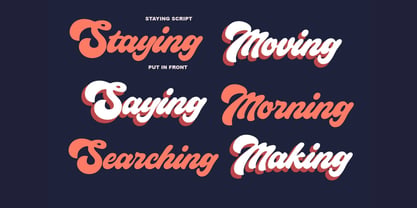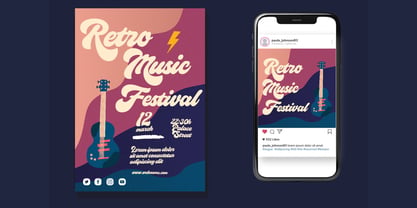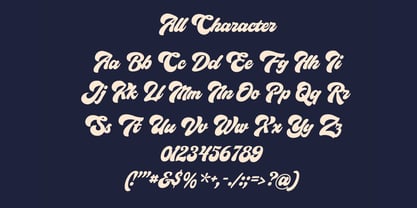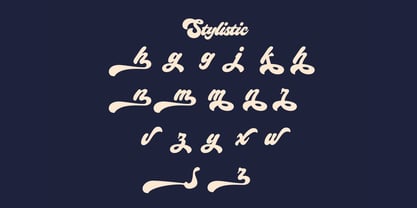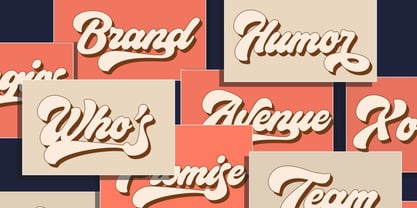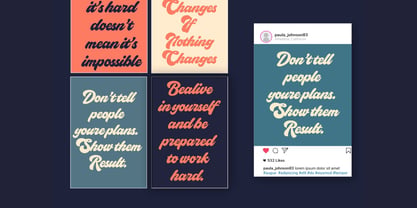
Meadow
by Only Fonts
The Meadow Font Family was designed by Olivia Love and published by Only Fonts. Meadow contains 1 styles. More about this family
Meadow is a warm, nature inspired script that blends handwritten charm with modern polish, crafted to bring a gentle, organic rhythm to your typography. Its flowing strokes and friendly forms evoke open fields and golden hour light, making it an inviting choice for brands that value authenticity, story, and a human touch. Use Meadow when you want words to feel personal, welcoming, and effortlessly elegant. Where it shines: - Editorial and long‑form: chapter titles, pull quotes, magazine bylines, and expressive section openers. - Branding: boutique logos, product marks, artisan packaging, and wellness identities that need a soft signature. - Marketing design: posters, ads, event materials, and social graphics that call for warmth and approachability. - Content creation: photography overlays, blog headers, inspirational quotes, and seasonal campaigns. - Stationery: wedding suites, invitations, thank‑you cards, and personalized tags. Standout features: - Uppercase and lowercase crafted for natural handwriting flow, ideal for logotypes and headings. - Clean numerals that pair gracefully with the script for dates, prices, and editorial numeration. - Functional design tuned for clear, legible display use at a range of sizes. - Multilingual support to carry brand voice across regions. - Stylistic details that add subtle variation for a bespoke, handwritten feel. - OpenType features, including ligatures and alternates, to create smooth connections and polished word shapes. Pairing tips: - For a refined brand system, combine Meadow with a modern serif for body copy to contrast texture with clarity. - For contemporary campaigns, pair it with a geometric sans to balance softness with structure. - Keep Meadow for headlines, logos, and highlights; use the companion text face for paragraphs to maintain readability. Use cases at a glance: books and magazines, logos and branding suites, photography captions, quotes, blog headers, posters, advertisements, packaging, and event collateral. Meadow brings a calm, crafted voice wherever warmth and sincerity matter most.
Designers: Olivia Love
Foundry: Only Fonts